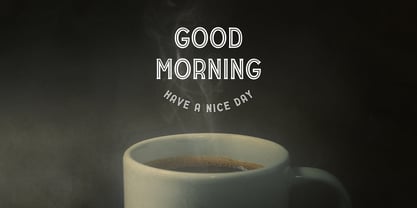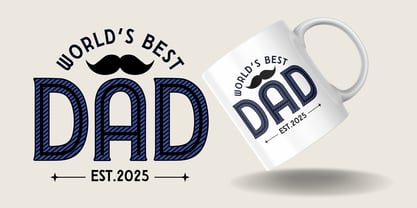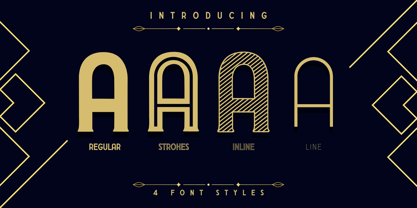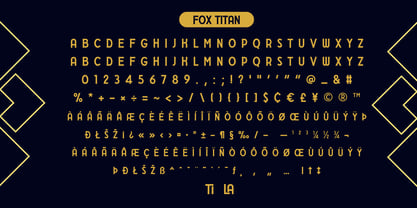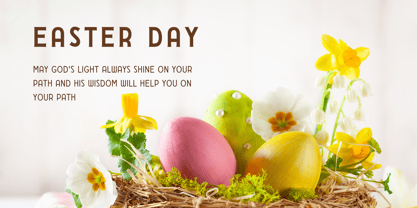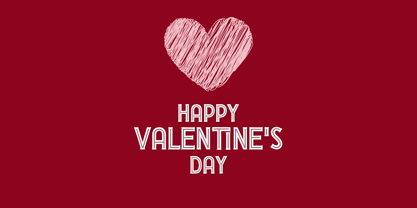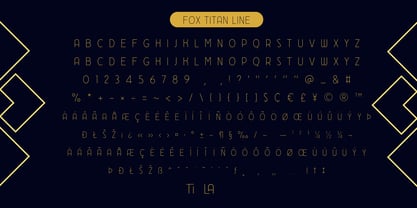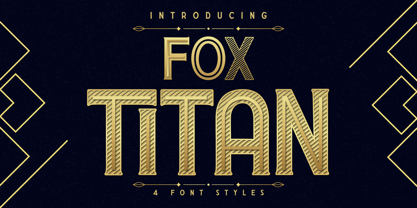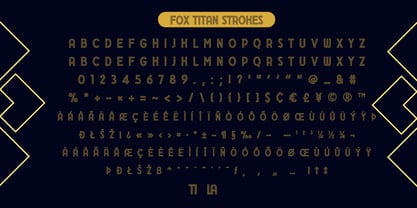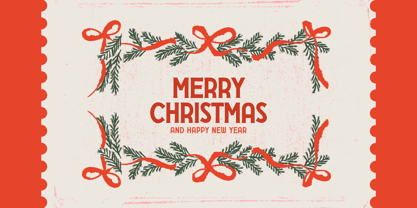
Fox Titan
The Fox Titan Font Family was designed by Rattana Rattanawan and published by Fox7. Fox Titan contains 4 styles and family package options.
Fox Titan is a bold and elegant vintage display font that brings a strong retro aesthetic to your designs. Inspired by classic signage, traditional typography, and vintage lettering, this font is perfect for projects that require a touch of nostalgia with a modern twist.
4 Font Styles: Regular, Strokes, Inline, and Line
Classic and sophisticated design with a bold presence
Perfect for logos, branding, posters, packaging, and headlines
High-quality, professional typography for various creative projects
Fox Titan delivers a striking balance between old-school charm and contemporary design, making it an excellent choice for vintage-inspired compositions. Add timeless elegance to your designs with this versatile font!